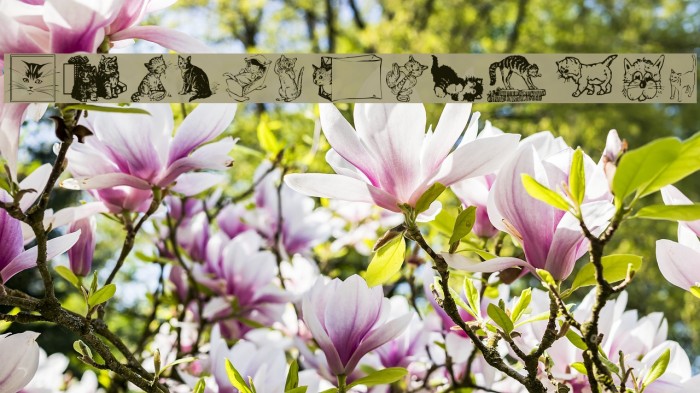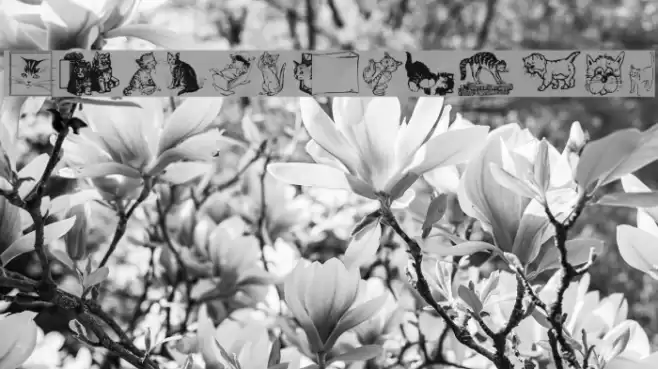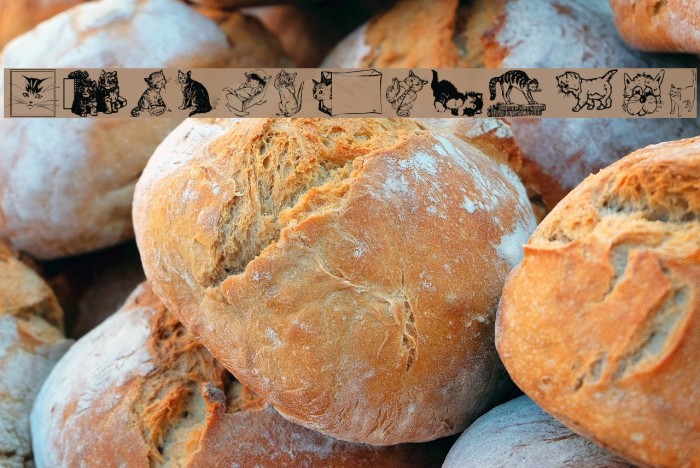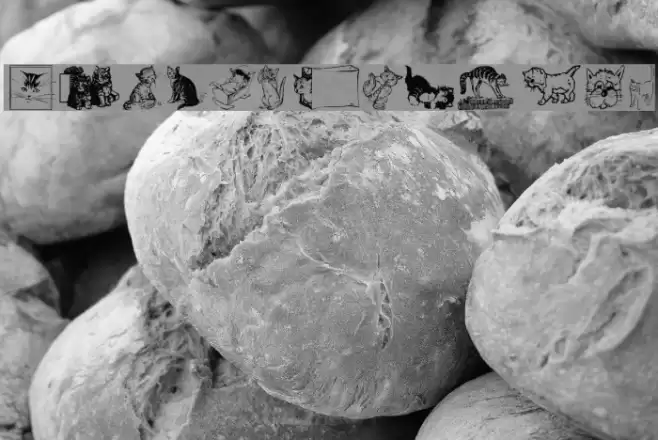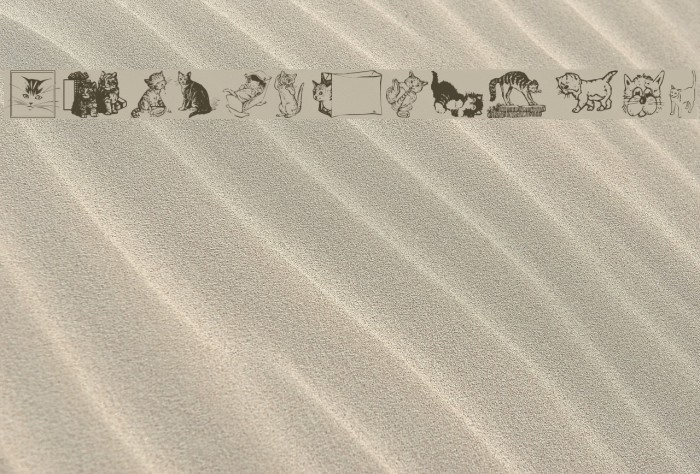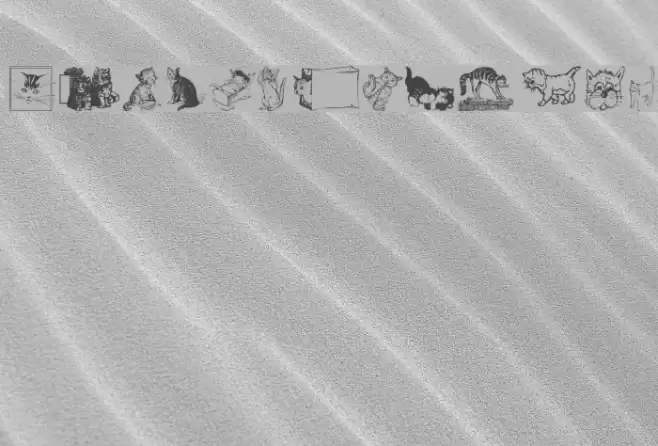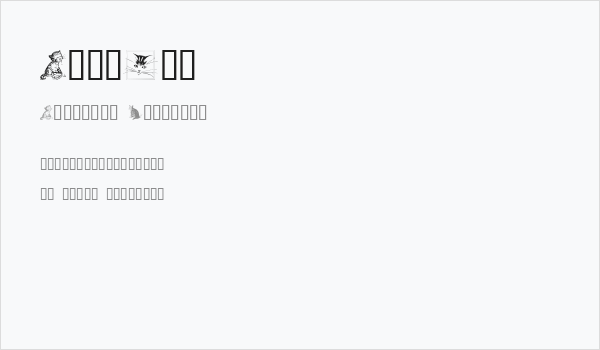
CattArt Font
CattArt Description
A playful decorative font featuring detailed illustrations of cats in various poses and activities, replacing standard alphanumeric characters with whimsical cat-themed drawings.
| Overall Style | Decorative, Whimsical |
| Use Case | Logos, Posters, Invitations, Themed Graphics |
| Proposed Projects | ChildrenΓ’β¬β’s books, pet shop branding, greeting cards, playful posters, animal-themed invitations. |